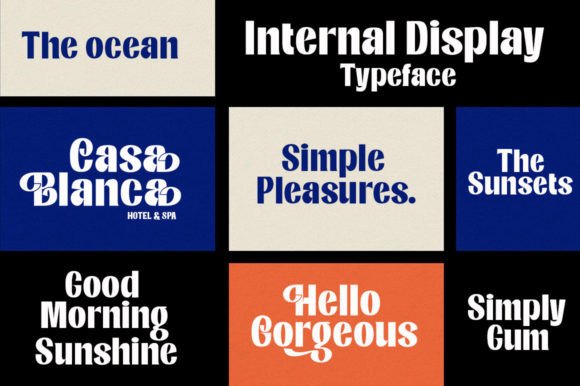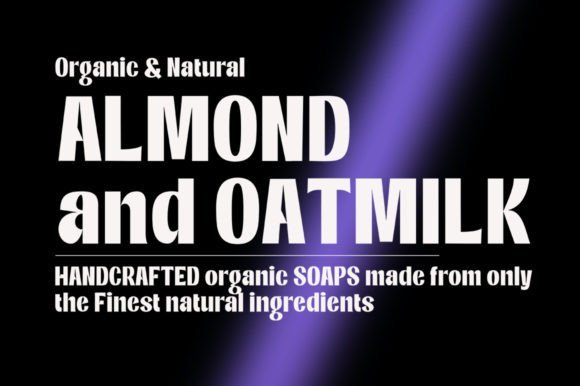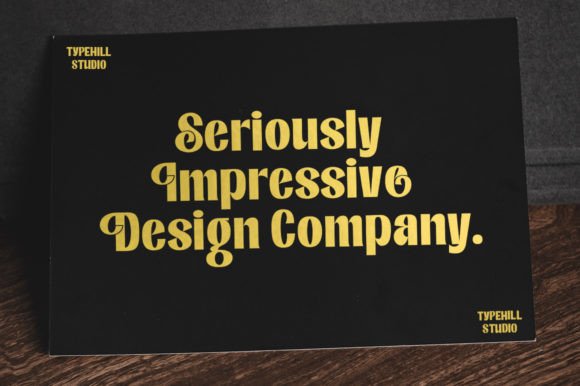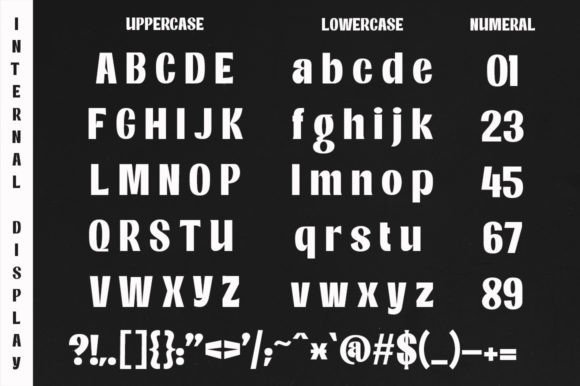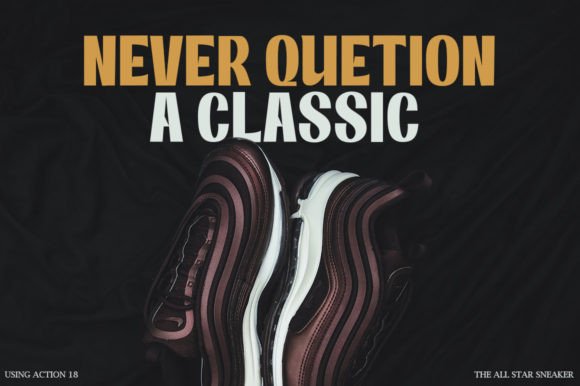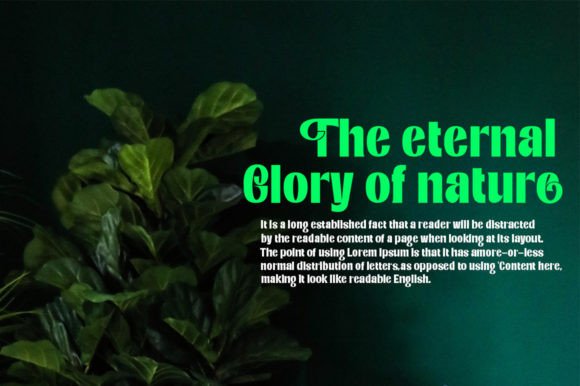
Unlocking the Beauty of Typography: A Closer Look at the Internal Display Font
Have you ever found yourself lost in a world of words, mesmerized by the perfect harmony of letters and spaces? For many designers, that moment of pure creativity is the driving force behind their craft. It’s the spark that ignites the flame of inspiration, and it’s exactly what makes typography so magical. Today, we’re going to delve into the captivating world of the Internal Display Font, a typeface that embodies elegance, sophistication, and timelessness.
This stunning font is designed to make a lasting impression, perfect for formal applications such as invitations, labels, and menus. Its classic style and smooth, clean lines make it an ideal choice for designers seeking to add a touch of glamour and sophistication to their work. With its versatility and unique character, the Internal Display Font is a valuable addition to any designer’s toolkit.
- Unique Characteristics: The font features a unique, modern design that is optimized for digital display, with a focus on clear readability and aesthetic appeal, making it a great choice for applications where visual impact is important.
Internal Display Font Review
I recently had the chance to work with the Internal Display Font, and I must say it’s an interesting font. Here are my thoughts.
- Unique design: The font has a distinctive, futuristic feel that can add a touch of modernity to any project.
- Good legibility: Despite its unconventional design, the font is surprisingly easy to read, making it suitable for body text and other applications.
- High-resolution support: The font looks great at high resolutions, which is essential for modern design projects.
- Limited expressiveness: While the font is unique, it may not be the best choice for projects that require a lot of emotional expression or subtlety.
- Not suitable for small text: The font can become difficult to read when used in small sizes, which may limit its use in certain applications.
The Internal Display Font is an interesting choice for designers who want to add some visual flair to their projects. While it may not be the best choice for every project, it can be a great option for those who want to create a futuristic or high-tech feel. With some careful consideration of its limitations, this font can be a valuable addition to any designer’s toolkit.